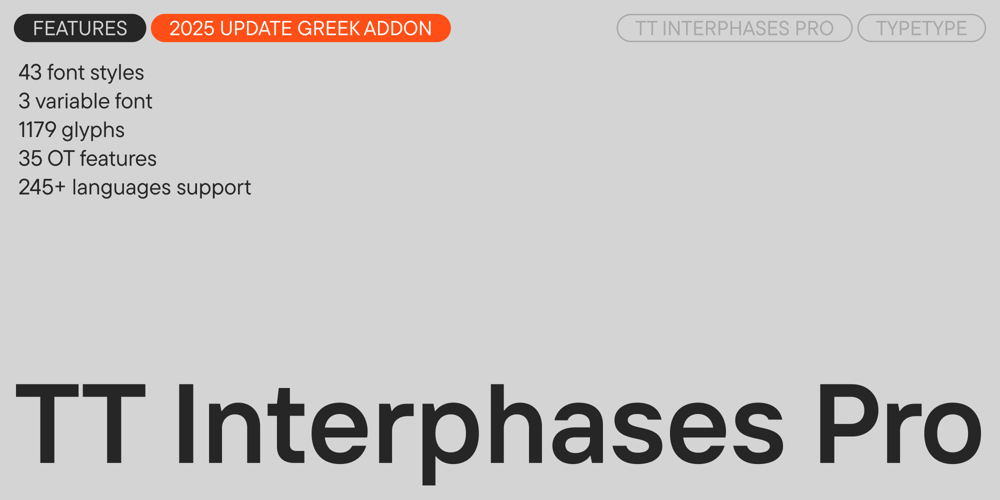
TT Interphases Pro
TT Interphases Pro font
TT Interphases Pro Font Family was designed by Ivan Gladkikh, Pavel Emelyanov, TypeType Team and published by TypeType. TT Interphases Pro contains 43 styles and family package options. Meet TT Interphases Pro version 2.100 — now with Greek language support! We’ve updated this functional and convenient interface font, making it even more perfect.TT Interphases Pro is a Neo-Grotesque typeface specifically designed for working with interfaces. Text set in this font appears uniform thanks to its static proportions. A larger height of the lowercase characters improves screen legibility, while neutral glyph characteristics and squared forms of the round characters allow it to remain readable even in smaller point sizes. Fluid bracket forms are consistent across all elements, making large blocks of text easy and pleasant to read. Closed apertures give the font a modern and distinctive look.TT Interphases Pro has a neutral yet aesthetic character. The main subfamily serves as an ideal foundation for any project. The TT Interphases Pro Mono subfamily—with its interesting glyph forms and consistent size of em-spaces—has a more distinctive appearance and is well-suited not only for coding but also for creating design products. The Condensed version allows you to make text blocks more compact.We paid special attention to the variable version of the font: you can adjust stroke weight, width, and the slant angle of the characters. From Thin to Black, from Condensed to Normal, from 0 to 11 degrees—customize the font however you need! By the way, we’ve added two variable fonts to the Mono subfamily—they now change along the weight axis.The updated version includes support for Greek and other languages as well; we’ve improved kerning and hinting and significantly expanded the character set. Specifically, we’ve added Uzbek som, Kyrgyz som, and tugrik currency symbols in all cases, proportional oldstyle and tabular oldstyle versions of currency symbols, and oldstyle characters for mathematical symbols.TT Interphases Pro also includes a comprehensive set of interface icons commonly used in UI design that visually harmonize with the font characters. This provides even more possibilities for implementing your ideas.The updated TT Interphases Pro includes: 43 styles: 36 styles in the basic subfamily, 4 monospaced, and 3 variable fonts 1,179 characters in each style of the basic subfamily 817 glyphs in each Mono style 35 OpenType features in the basic subfamily 28 OpenType features in the Mono subfamily Support for more than 245 languagesTT Interphases Pro is the perfect font for working with interfaces on modern mobile and web platforms.